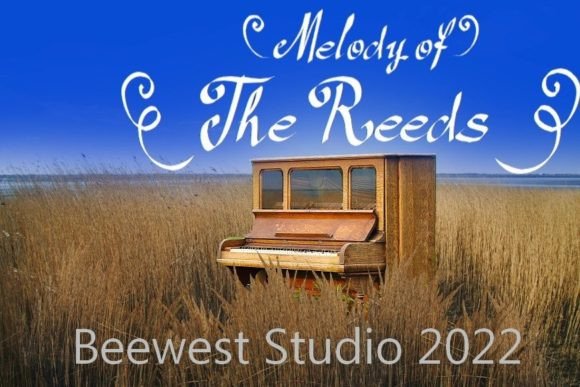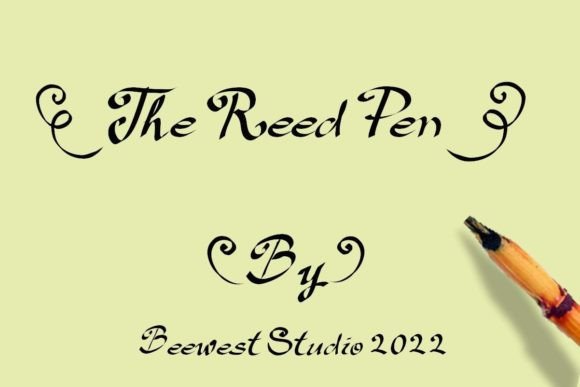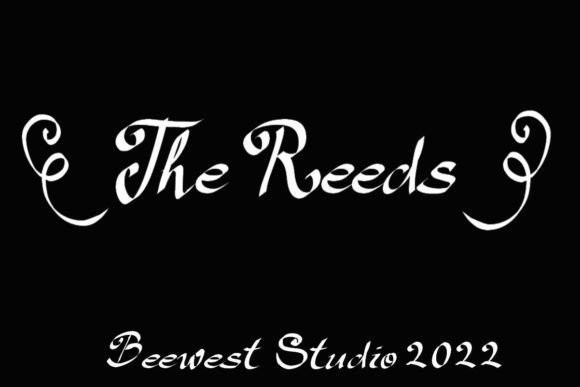
Reeds Font
About Reeds Font
“The Reeds” is a charming handwritten font designed to emulate the script style produced by the traditional reed pen. Drawing inspiration from the practices of traditional boarding schools in Indonesia, where students often use reed pens for learning calligraphy, this font captures the essence of traditional craftsmanship. With its traditional and handmade appearance, “The Reeds” brings a nostalgic and authentic touch to your creative projects.
The font’s design, inspired by the traditional use of reed pens, imparts a unique and cultural feel. It carries the spirit of craftsmanship associated with the art of calligraphy, making it an ideal choice for those seeking a traditional and handcrafted aesthetic. This font adds a touch of cultural richness and authenticity to your designs.
“The Reeds” finds its sweet spot when used to write poems on greeting cards, invitations, or books. Its handwritten quality not only adds a personal touch but also complements the poetic and expressive nature of written words. Whether you’re crafting heartfelt messages, event invitations, or literary works, this font enhances the overall sentiment with its traditional and artistic appearance.
The association with the reed pen tradition in Indonesian boarding schools adds an interesting cultural layer to “The Reeds.” It becomes more than just a font; it becomes a representation of a cultural practice, allowing users to infuse their projects with a sense of heritage and nostalgia.
In summary, “The Reeds” is a font that goes beyond its visual appeal; it carries cultural significance and a connection to traditional calligraphy practices. Whether you’re writing poems, designing greeting cards, invitations, or books, let “The Reeds” be the vessel that transports your projects into the realm of tradition, craftsmanship, and authentic artistry.